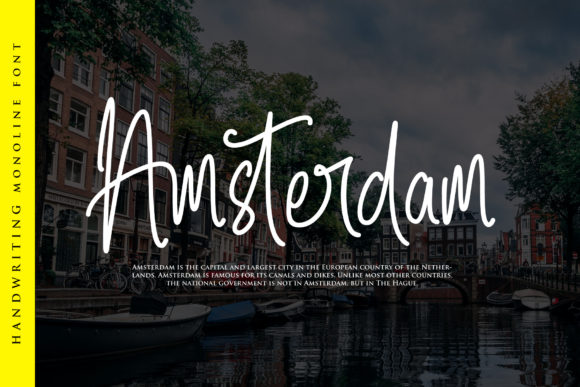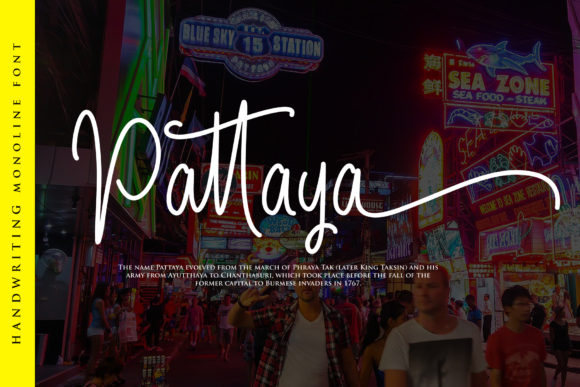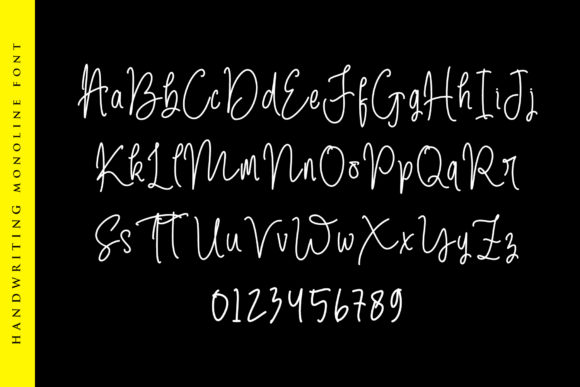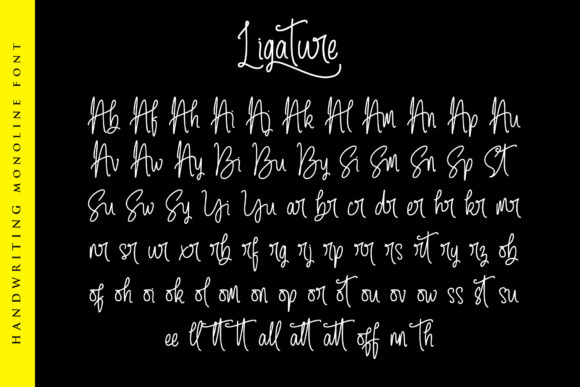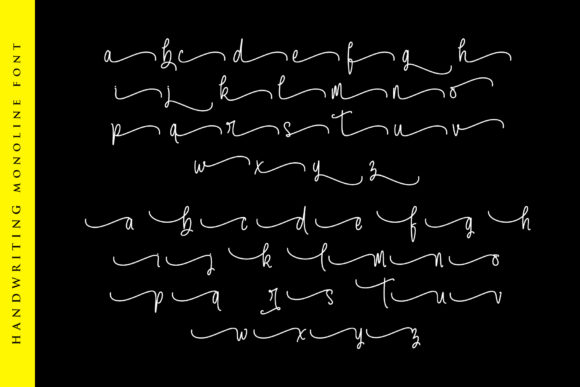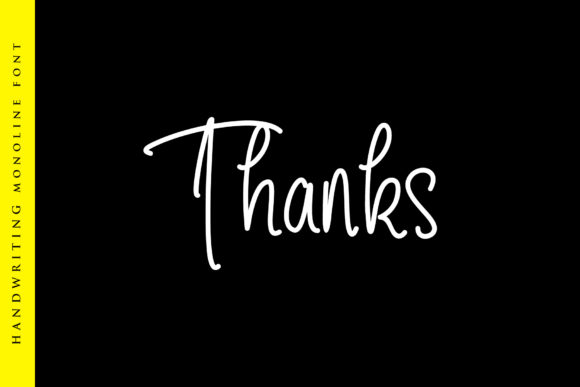
HomeScript FontsThe Amstrong Font Script Fonts The Amstrong Font FacebookXPinterestWhatsApp The Amstrong Font Poster 2 The Amstrong Font Poster 3 The Amstrong Font Poster 4 The Amstrong Font Poster 5 The Amstrong Font Poster 6 The Amstrong Font Poster 7 About The Amstrong Font The Amstrong is a fun and bold handwritten font with an incredible charm. Get inspired by its playful vibe. DOWNLOAD ON CREATIVE FABRICAThis font is sold and delivered by Creative Fabrica. Font Canyon may earn a commission if you buy through this link. People also explored Stooha Font The Chaplin Font Marchy Font Qillyanst Font Rano Font Cathelyne Font Cantina Fresca Regular Satis Font Block Party 344 0 TagsThe Amstrong Font Previous articleMance Rose Duo FontNext articleSmol Kitty Boi Font LEAVE A REPLY Cancel reply Comment: Please enter your comment! Name:* Please enter your name here Email:* You have entered an incorrect email address! Please enter your email address here Website: Save my name, email, and website in this browser for the next time I comment. Personal Use Free William Personal Use Free Read more about this font BD Medled Personal Use Free Read more about this font Imelda Personal Use Free Read more about this font Sushi Day Personal Use Free Read more about this font BLOG Best Fonts for T-Shirt Design – Top 2025 Picks In 2025, t-shirt design has become more than just fashion—it's a form of self-expression. Whether you're... The 10 Best Handwriting Fonts to Add Personality to Your Designs Free Fonts Risk: Why Free Fonts Can Be Dangerous for Designers Top 10 Handwritten Fonts That Elevate Your Designs